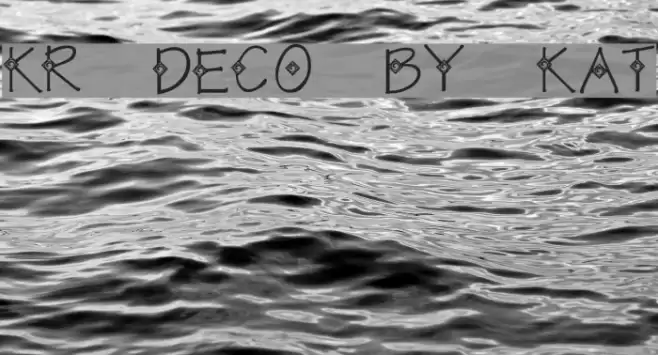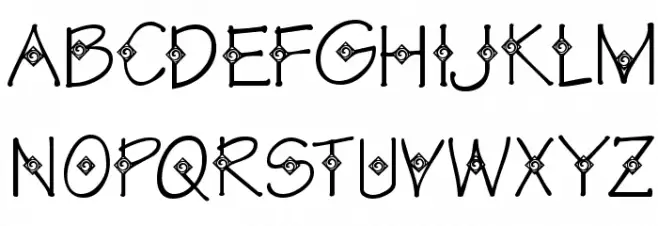
KR Deco by Kat Font
KR Deco by Kat Description
This font features a unique and decorative style, characterized by its bold and artistic letterforms. Each character is adorned with intricate geometric patterns, adding an ornamental touch that makes it stand out. The uppercase letters are particularly striking, with a consistent design that incorporates circular motifs and angular lines. This font is perfect for projects that require a distinctive and eye-catching typeface, such as posters, invitations, or branding materials. Its artistic flair and decorative elements make it suitable for creative and expressive designs.
A bold, decorative font with intricate geometric patterns from Uncategorized fonts.
- Proposed Projects: Ideal for posters, invitations, branding, and creative designs.